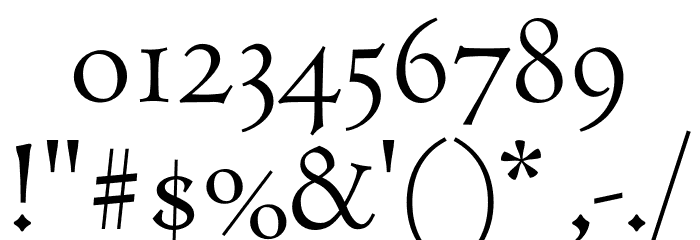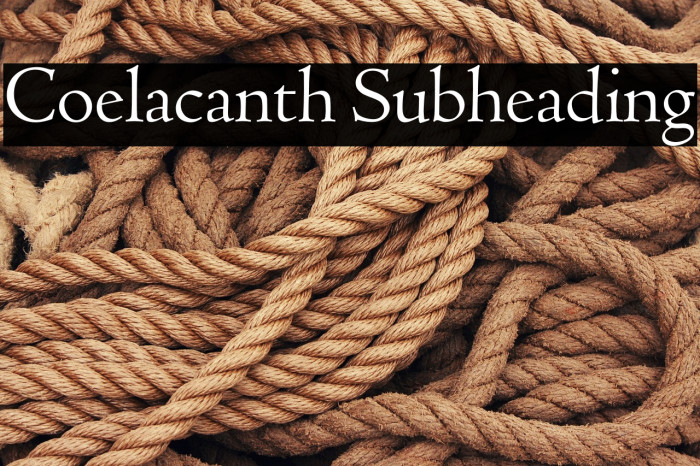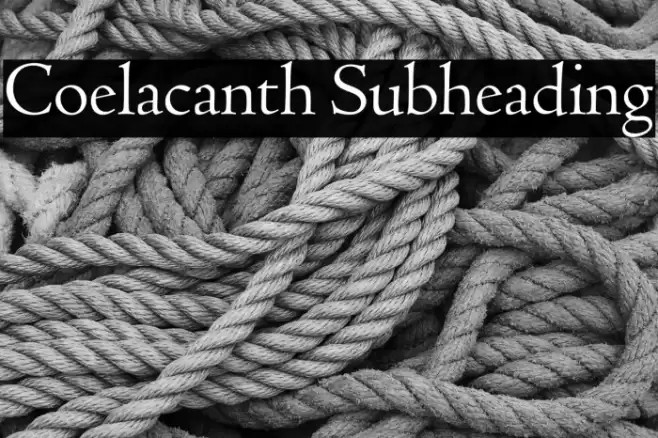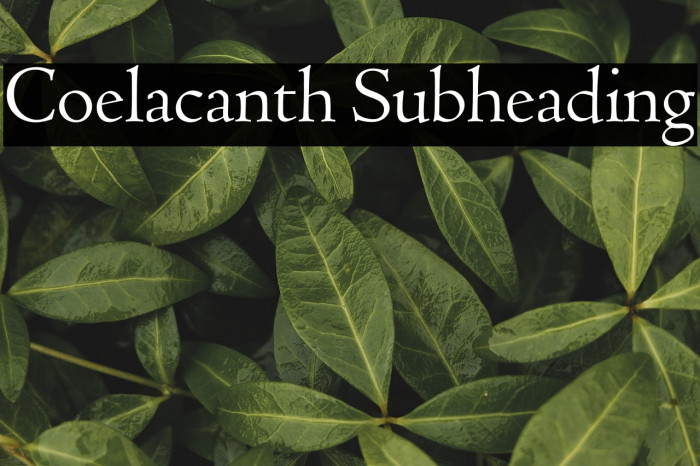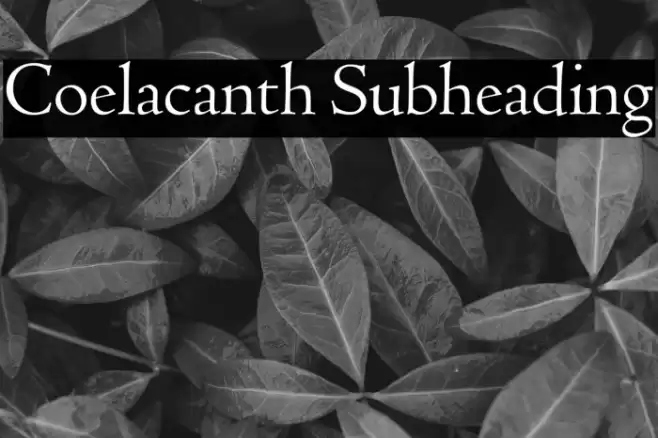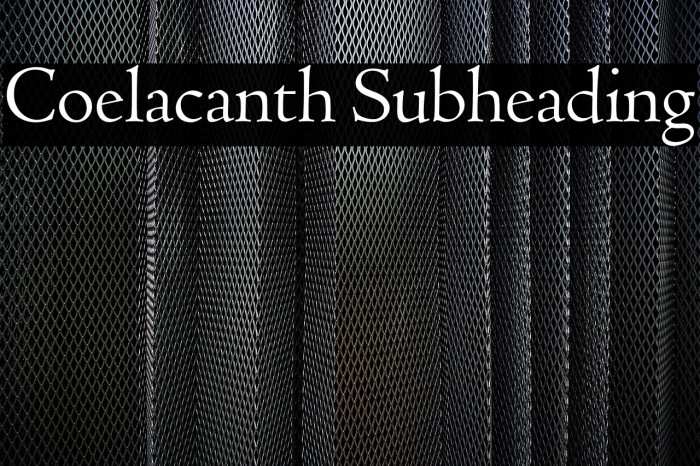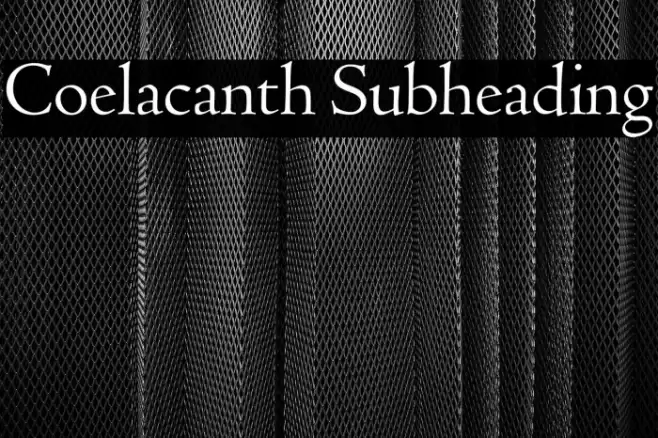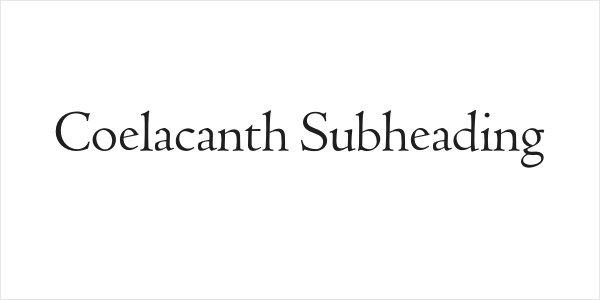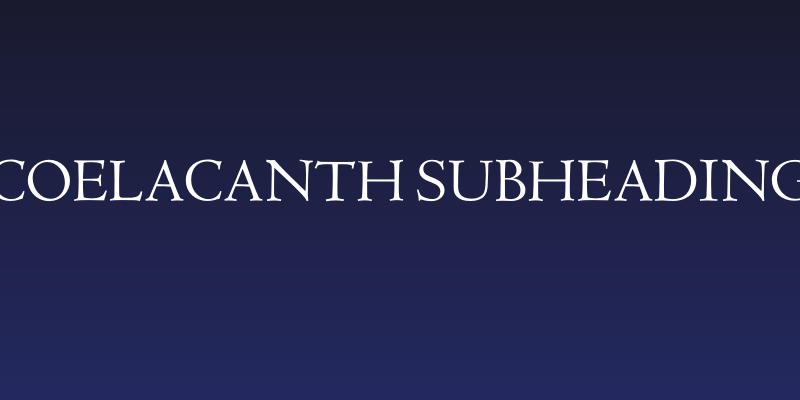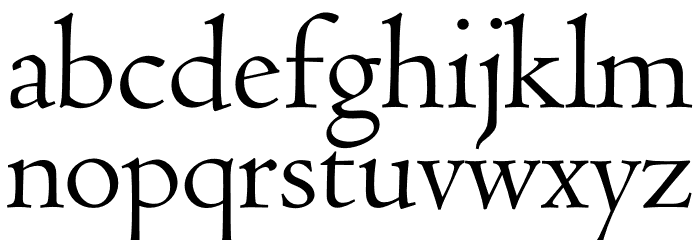
Coelacanth Subheading Font
Coelacanth Subheading Description
This font features a classic serif style with a distinctive and elegant appearance. The uppercase letters are bold and commanding, with sharp serifs that give them a formal and traditional look. The lowercase letters maintain a consistent style, with a slightly more delicate touch, enhancing readability while preserving the overall aesthetic. The numerals are well-proportioned and align seamlessly with the alphabet, making them suitable for both text and numerical data. Special characters are crafted with the same attention to detail, ensuring a cohesive look across all glyphs. The font's design is reminiscent of historical typefaces, yet it maintains a modern sensibility, making it versatile for various applications.
| Proposed Projects | Ideal for book covers, editorial design, formal invitations, and branding projects that require a touch of elegance and tradition. |